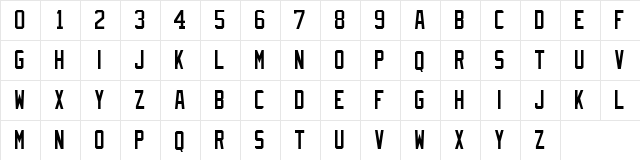
NHL Dallas Regular Font Preview
NHL Dallas Regular
Design Context for NHL Dallas Typeface
NHL Dallas takes a measured approach to typography — its balanced proportions and neutral character make it a reliable workhorse for both digital and print work.